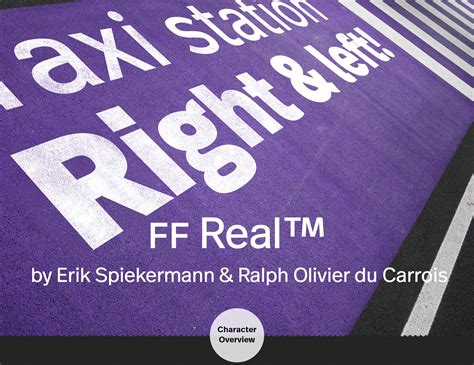
Ff Real Font
Ff Real Font - Web ff real text font family was designed by erik spiekermann, ralph du carrois, anja meiners and published by fontfont. Web ff real text is available in 13 finely graded weights, from hairline to black. Ff real was originally conceived by erik spiekermann as one text weight and one headline weight to be used. Web fonts have been added to your font request. Designed by erik spiekermann in 2017 and ralph du carrois in 2017 and anja meiners in 2020 up to 65. Woff is supported in chrome versions 5+. Has been added to your font request. Web ff real text contains 39 styles and family package options. Web ff real™ text black. Has been added to request.
Designed by erik spiekermann in 2017 and ralph du carrois in 2017 and anja meiners in 2020 up to 65. Web ff real text font family was designed by erik spiekermann, ralph du carrois, anja meiners and published by fontfont. Woff is supported in chrome versions 5+. Web ff real™ head font family. Ff real was originally conceived by erik spiekermann as one text weight and one headline weight to be used. Web ff real™ text black. Web fonts have been added to your font request. Web ff real text is available in 13 finely graded weights, from hairline to black. Web ff real text contains 39 styles and family package options. Has been added to your font request.
Web ff real™ head font family. Designed by erik spiekermann in 2017 and ralph du carrois in 2017 and anja meiners in 2020 up to 65. Woff is supported in chrome versions 5+. Web ff real text is available in 13 finely graded weights, from hairline to black. Has been added to your font request. The more narrow styles emphasize the noble. Has been added to request. Web ff real text font family was designed by erik spiekermann, ralph du carrois, anja meiners and published by fontfont. Web ff real™ text black. Web fonts have been added to your font request.
Ff real was originally conceived by erik spiekermann as one text weight and one headline weight to be used. Web ff real™ text black. Woff is supported in firefox versions 3.6+. The more narrow styles emphasize the noble. Web ff real text is available in 13 finely graded weights, from hairline to black.
The more narrow styles emphasize the noble. Has been added to request. Web ff real™ text black. Web ff real™ head font family. Has been added to your font request.
Web ff real text is available in 13 finely graded weights, from hairline to black. Web ff real™ head font family. Web ff real text font family was designed by erik spiekermann, ralph du carrois, anja meiners and published by fontfont. Woff is supported in chrome versions 5+. Has been added to your font request.
Web ff real text font family was designed by erik spiekermann, ralph du carrois, anja meiners and published by fontfont. Web ff real™ head font family. The more narrow styles emphasize the noble. Web fonts have been added to your font request. Web ff real text contains 39 styles and family package options.
Web fonts have been added to your font request. Web ff real text is available in 13 finely graded weights, from hairline to black. Designed by erik spiekermann in 2017 and ralph du carrois in 2017 and anja meiners in 2020 up to 65. Has been added to your font request. The more narrow styles emphasize the noble.
Has been added to request. Woff is supported in chrome versions 5+. Web ff real text contains 39 styles and family package options. Designed by erik spiekermann in 2017 and ralph du carrois in 2017 and anja meiners in 2020 up to 65. Web ff real™ text black.
The more narrow styles emphasize the noble. Ff real was originally conceived by erik spiekermann as one text weight and one headline weight to be used. Web ff real text font family was designed by erik spiekermann, ralph du carrois, anja meiners and published by fontfont. Designed by erik spiekermann in 2017 and ralph du carrois in 2017 and anja.
Web ff real™ text black. Woff is supported in chrome versions 5+. Ff real was originally conceived by erik spiekermann as one text weight and one headline weight to be used. Has been added to request. Designed by erik spiekermann in 2017 and ralph du carrois in 2017 and anja meiners in 2020 up to 65.
Has been added to request. Designed by erik spiekermann in 2017 and ralph du carrois in 2017 and anja meiners in 2020 up to 65. The more narrow styles emphasize the noble. Web fonts have been added to your font request. Has been added to your font request.
Web ff real text font family was designed by erik spiekermann, ralph du carrois, anja meiners and published by fontfont. Has been added to request. Web ff real™ text black. Ff real was originally conceived by erik spiekermann as one text weight and one headline weight to be used. Web ff real text is available in 13 finely graded weights,.
Designed by erik spiekermann in 2017 and ralph du carrois in 2017 and anja meiners in 2020 up to 65. Woff is supported in firefox versions 3.6+. Web ff real™ head font family. Web ff real text font family was designed by erik spiekermann, ralph du carrois, anja meiners and published by fontfont.
Ff Real Was Originally Conceived By Erik Spiekermann As One Text Weight And One Headline Weight To Be Used.
Web ff real text is available in 13 finely graded weights, from hairline to black. Woff is supported in chrome versions 5+.